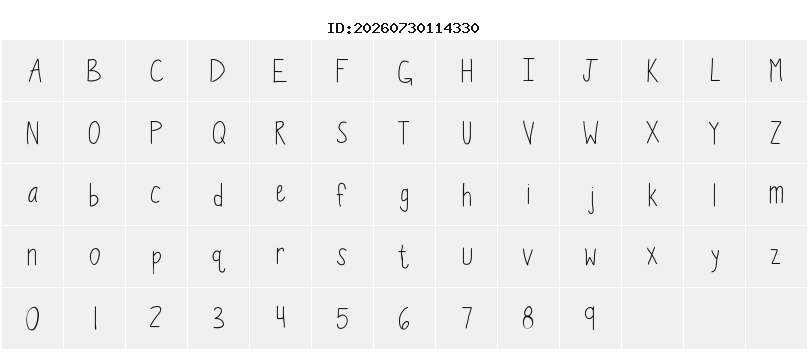
KBWiggleWorm Preview
• Font Name: KBWiggleWorm
• Font ID: KhrysBosland:KBWiggleWorm
• Full Font Name: KBWiggleWorm
• PostScript Name: KBWiggleWorm
• Character Count: 102
About KBWiggleWorm.ttf
KBWiggleWorm.ttf is a modern, elegant sans-serif font designed for ultimate readability and visual harmony. Perfect for branding, headlines, web design, and print materials.